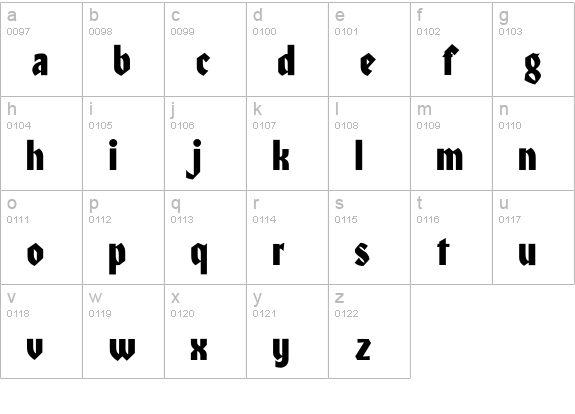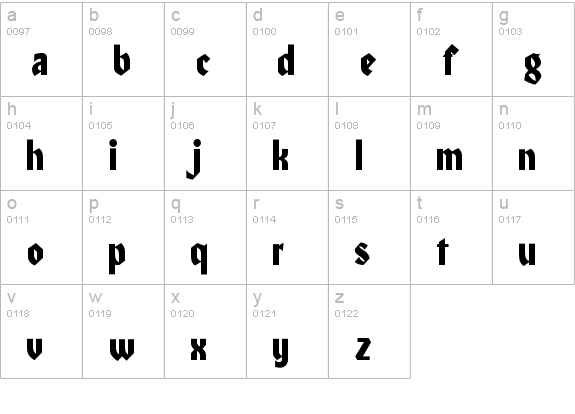
HondaFont Font Details
Introducing HondaFont - a modern and stylish font that exudes sophistication and elegance. With its sleek lines and contemporary design, HondaFont is perfect for a wide range of design projects, from branding to web design to print materials. What sets HondaFont apart is not just its aesthetic appeal, but also its versatility. Whether you're looking to create a sleek and professional look or a bold and eye-catching design, HondaFont has you covered. Best of all, HondaFont is available for free download at FontsMarket.com. So, whether you're a seasoned designer looking to add a fresh new font to your collection or a newbie searching for the perfect font for your latest project, HondaFont is the perfect choice. Download it today and elevate your designs to the next level with HondaFont.